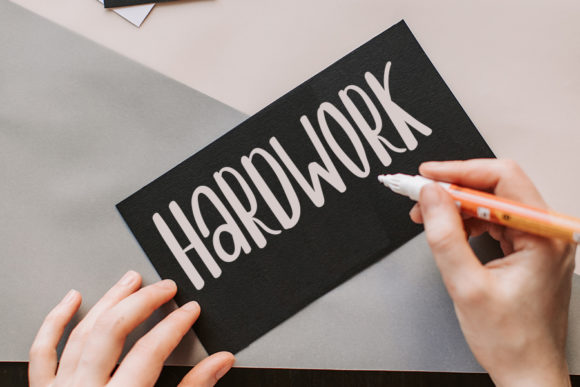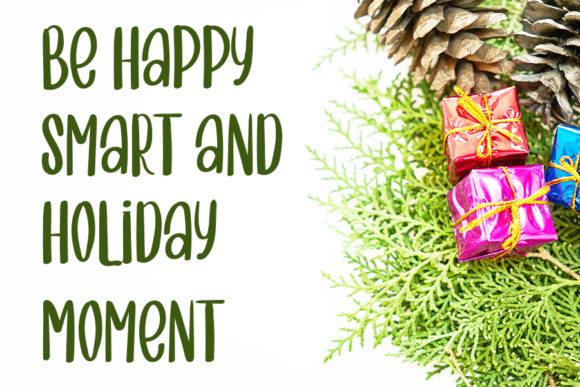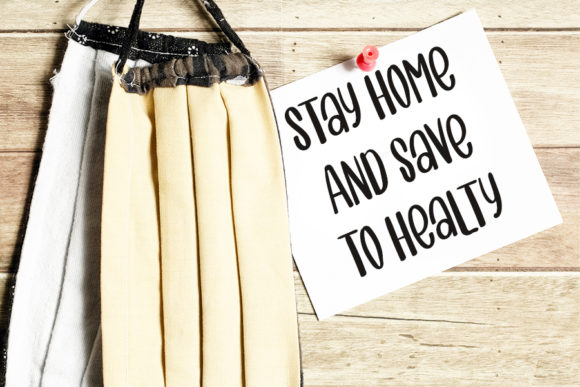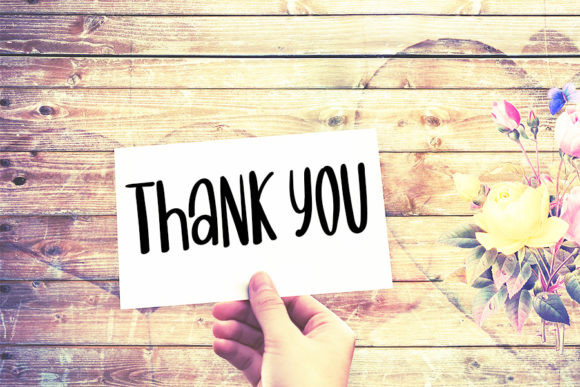
The Perfect Font for Your Creative Vision
Have you ever stared at a blank page or screen, waiting for the perfect font to bring your design to life? It’s that moment of creative frustration that sparked the search for the ideal font – and that’s where the lovely Butterland Font comes in.
Designed to be a friendly and approachable display font, Butterland Font is perfect for adding a customized touch to social media posts, websites, flyers, invitations, and more. Its simple and natural style makes it a versatile choice for designers looking to add a little personality to their work.
With its unique charm, the Butterland Font is a valuable addition to any designer’s toolkit, offering a fresh and creative way to express themselves and connect with their audience.
- Unique Characteristics: The Butterland Font features a distinctive, hand-drawn style with a mix of geometric and organic elements, giving it a unique and eye-catching appearance.
Butterland Font Review
I recently had the chance to work with the Butterland Font, and I must say it’s a unique addition to any design project. ✨ Here are a few things that I think work well:
- Its playful, whimsical feel is perfect for creative projects or brands that want to stand out.
- The font’s versatility makes it suitable for a wide range of applications, from headings to body text.
- The font’s unique characteristics, such as its irregular letterforms and varied line heights, add a touch of personality to any design.
- The font’s irregularities can sometimes make it difficult to read, especially in large blocks of text.
- The font may not be suitable for formal or professional projects where a more traditional font is preferred.
- The font’s unique characteristics may not be suitable for projects where consistency and uniformity are crucial.
Overall, I think the Butterland Font is a great addition to any design project that requires a creative, playful touch. While it may not be suitable for every project, it’s definitely worth considering for the right application.
The Butterland Font is ideal for:
- Creating whimsical and playful designs.
- Adding a touch of nostalgia to your designs.
- Designing children’s products or educational materials.